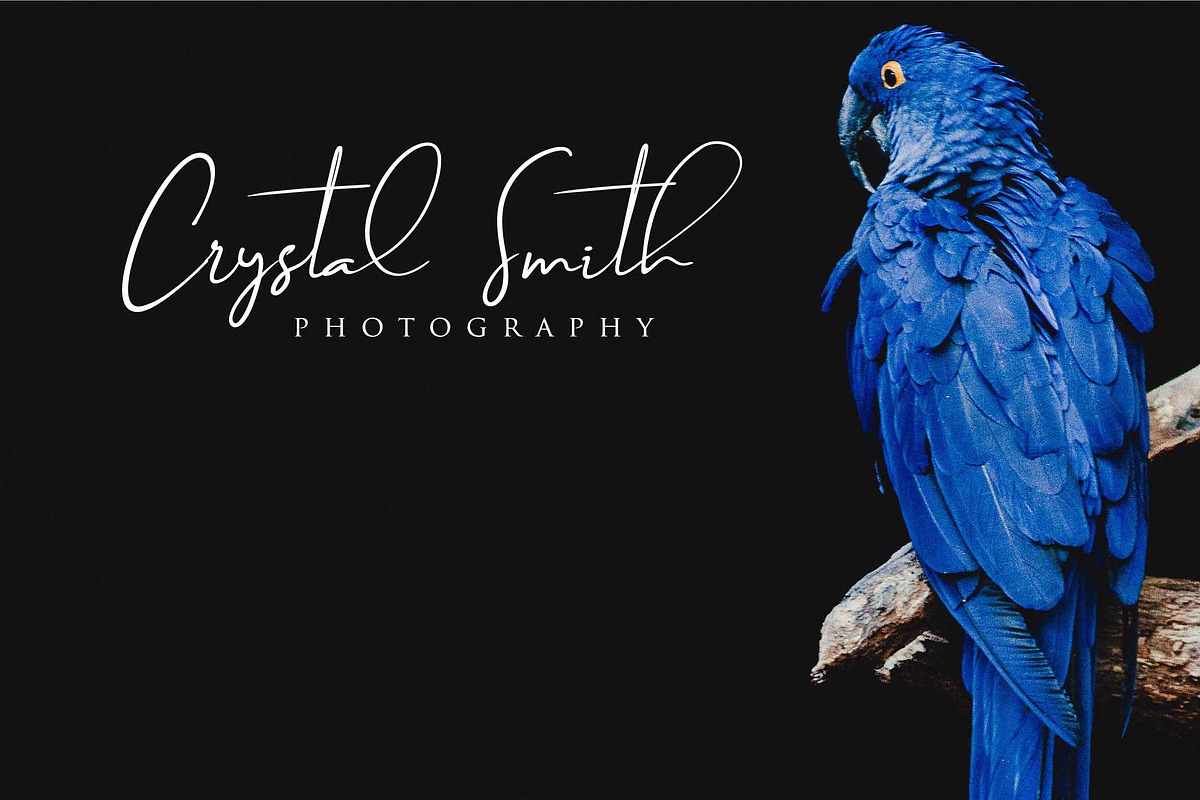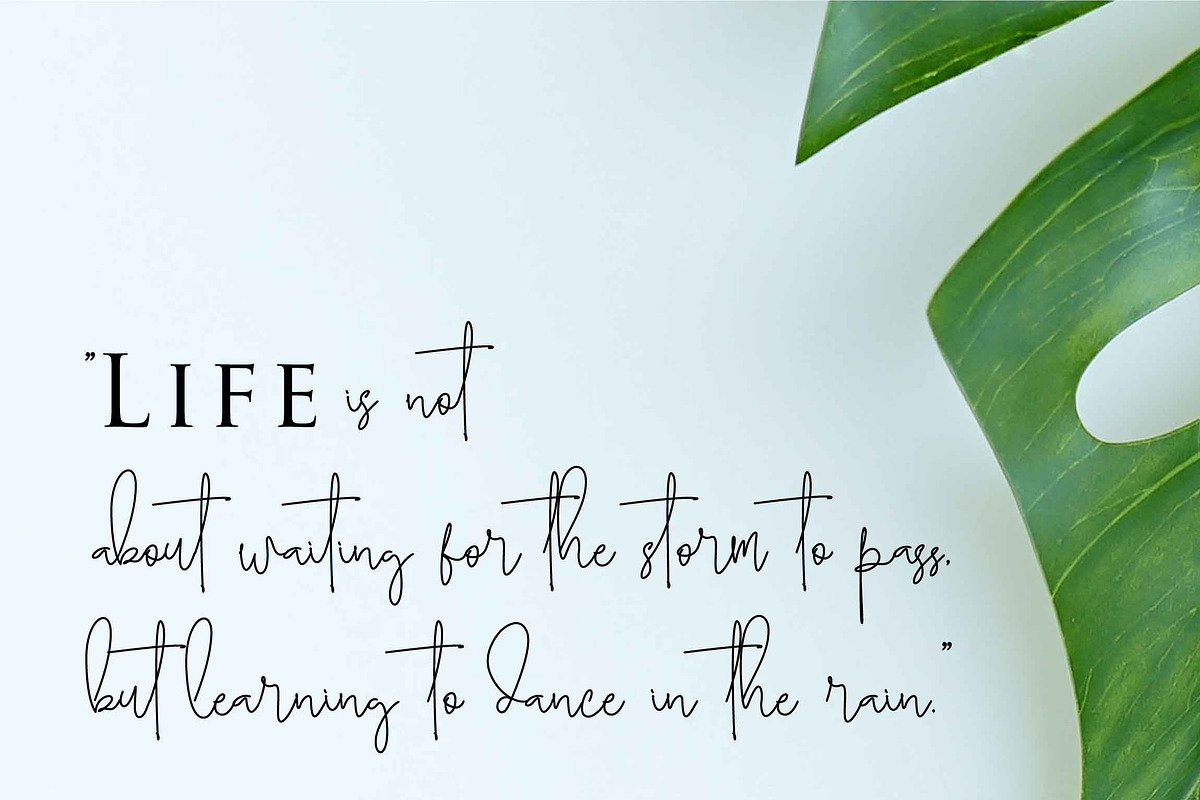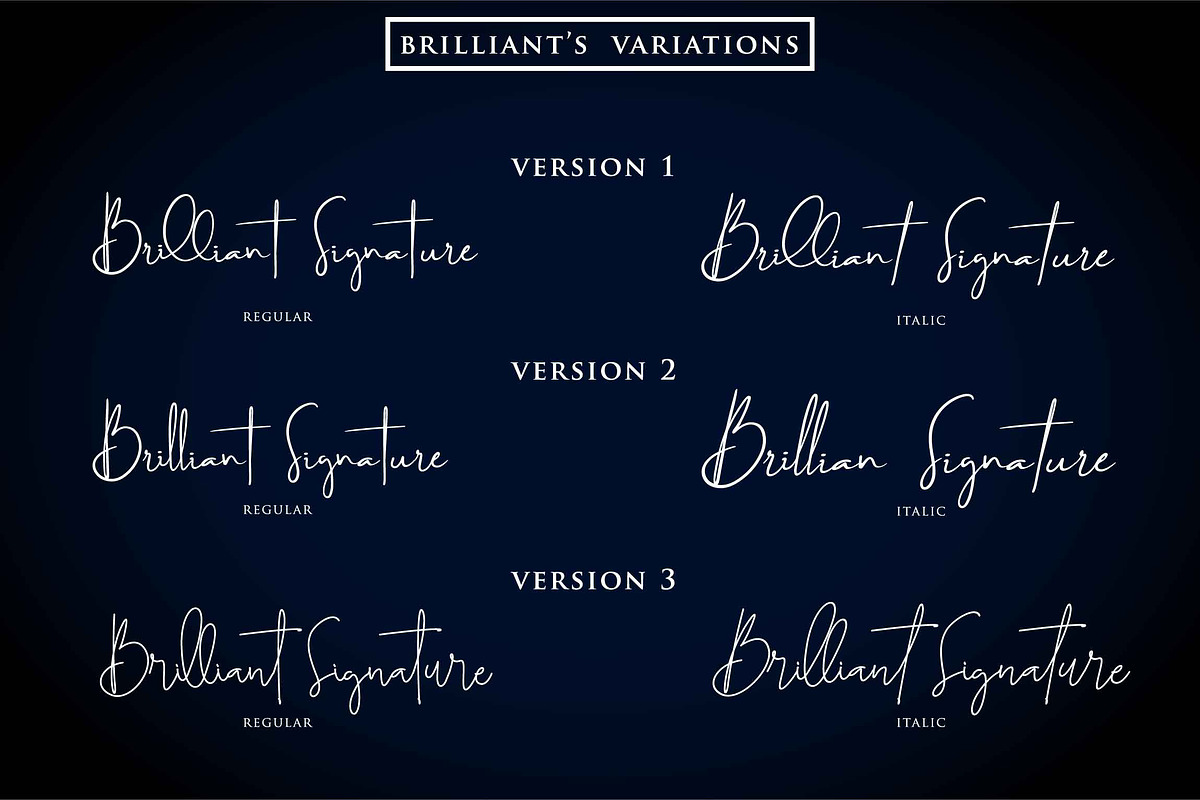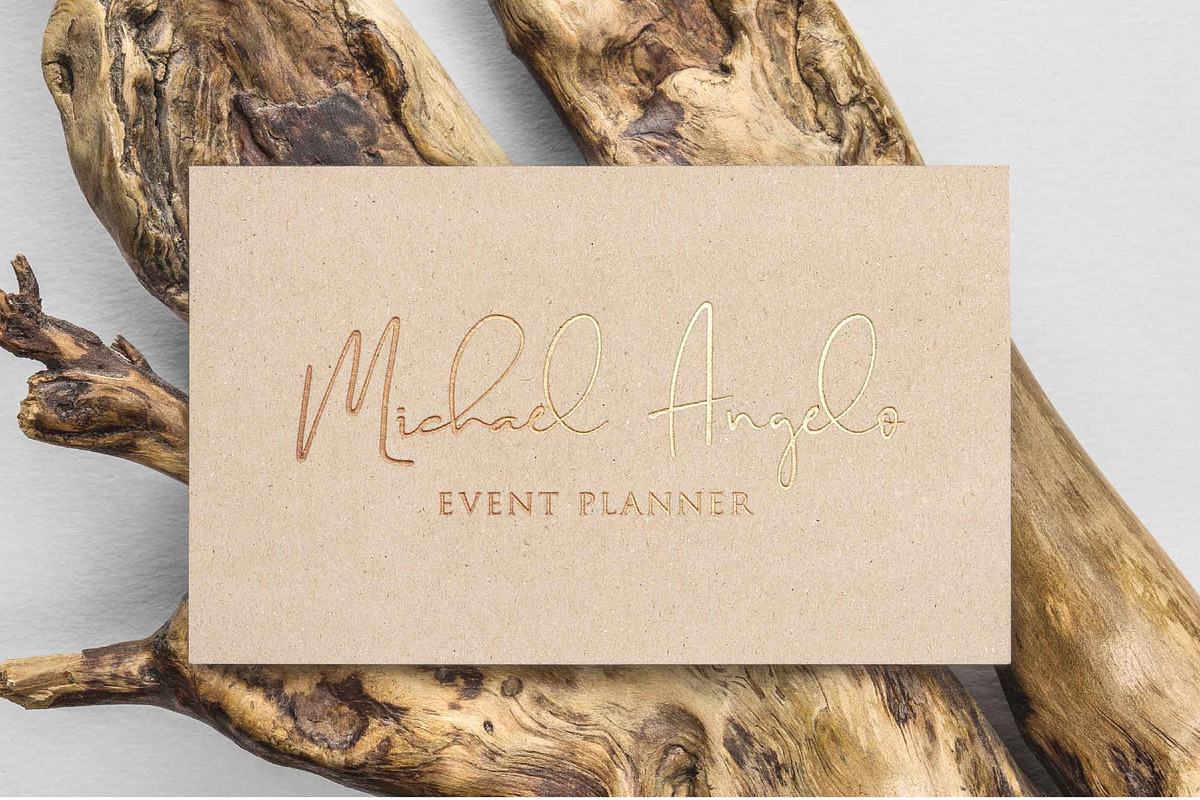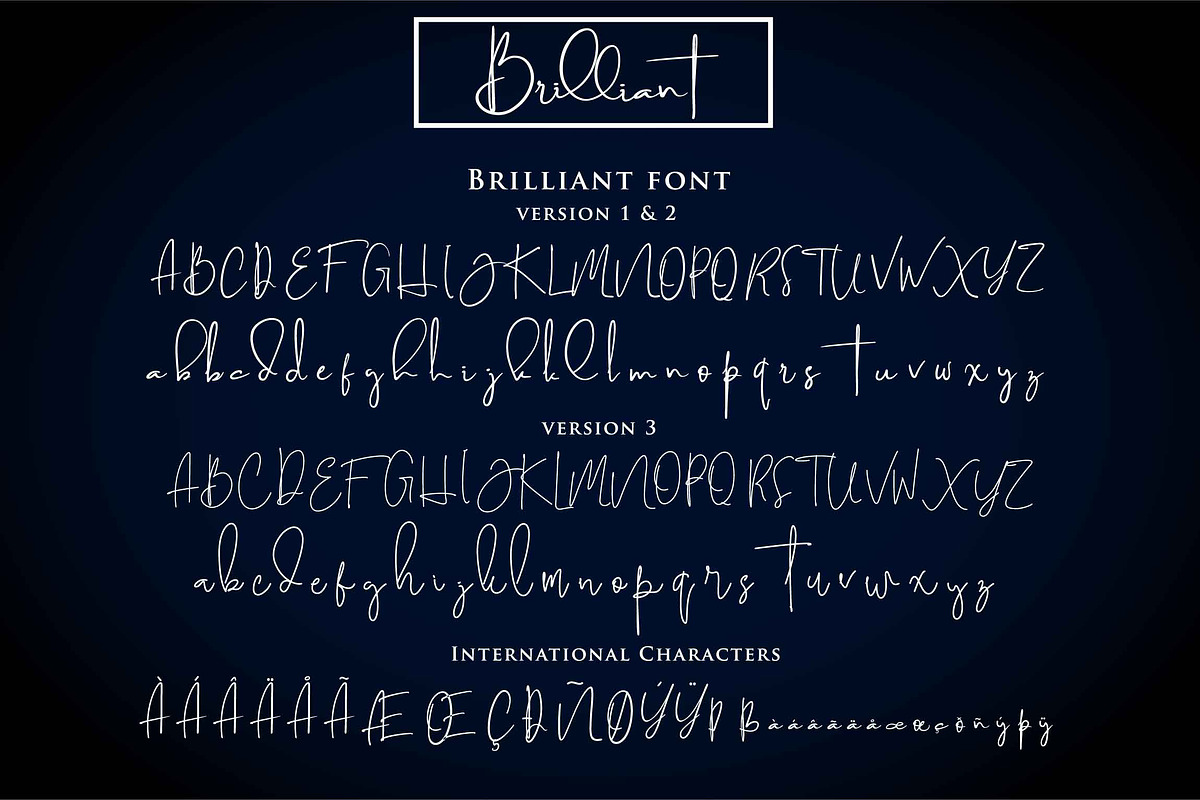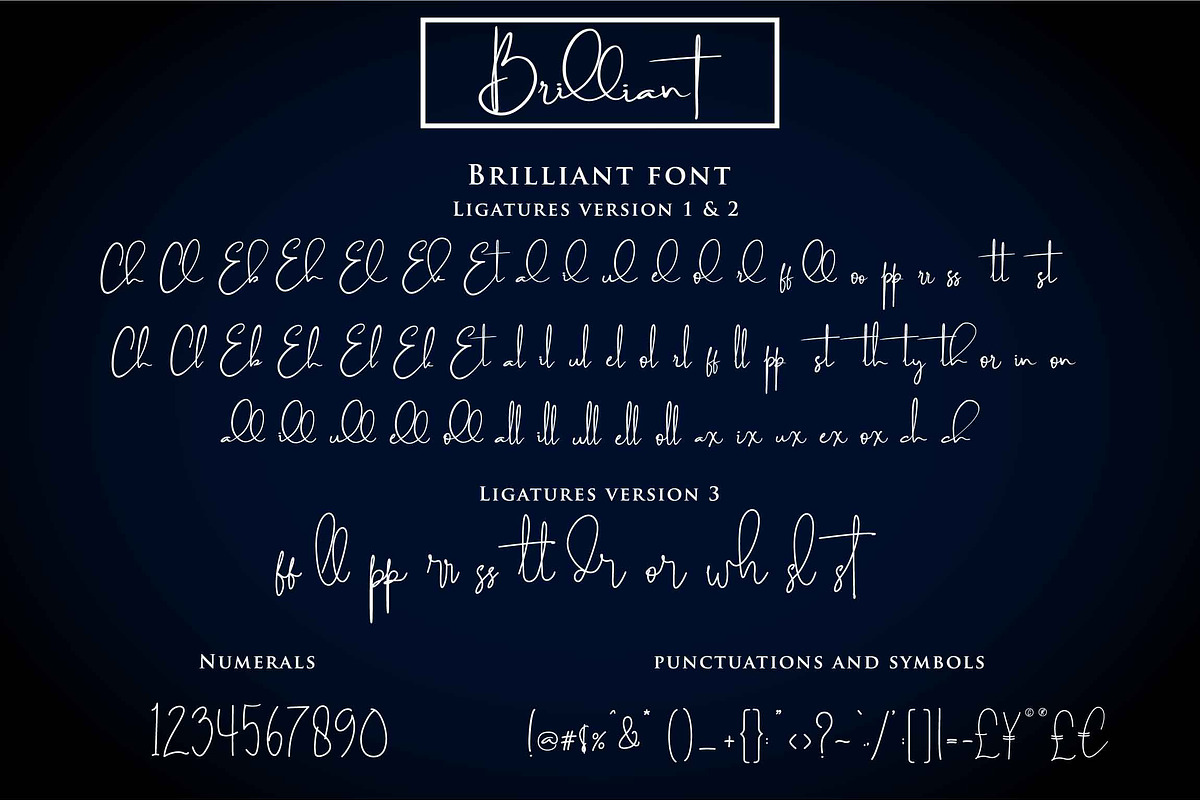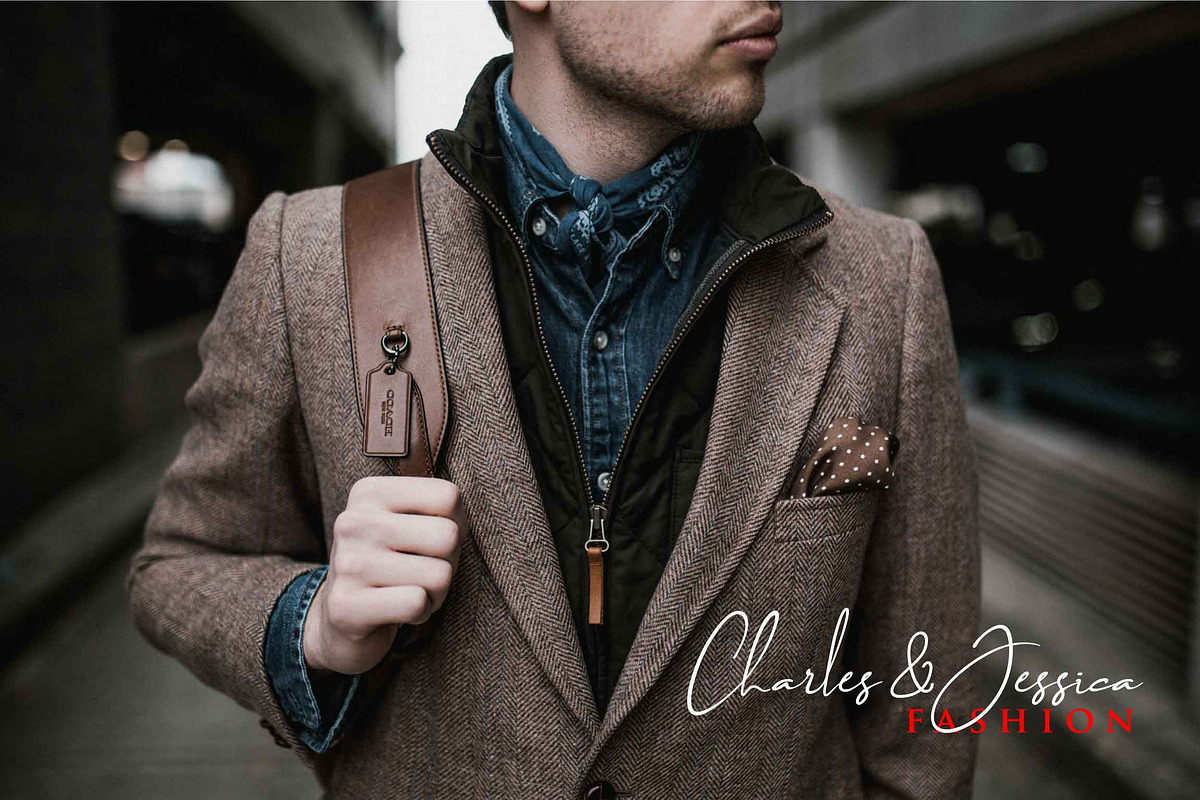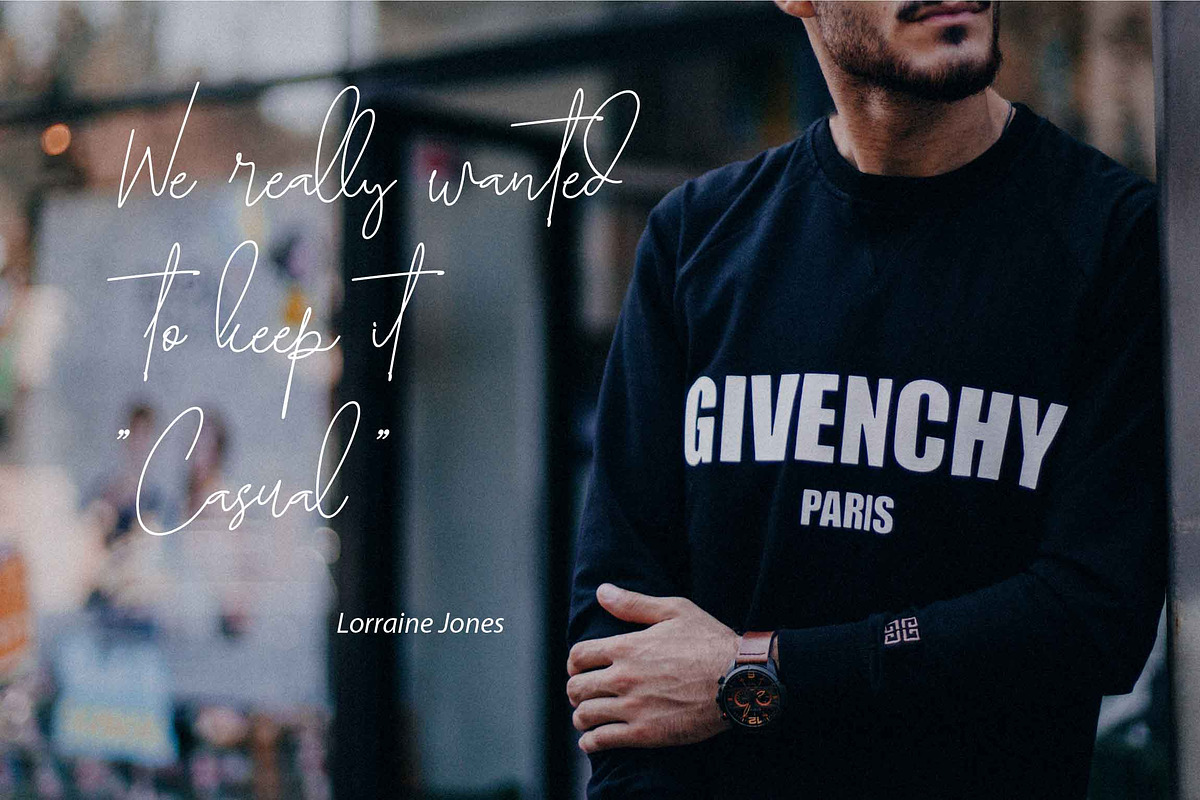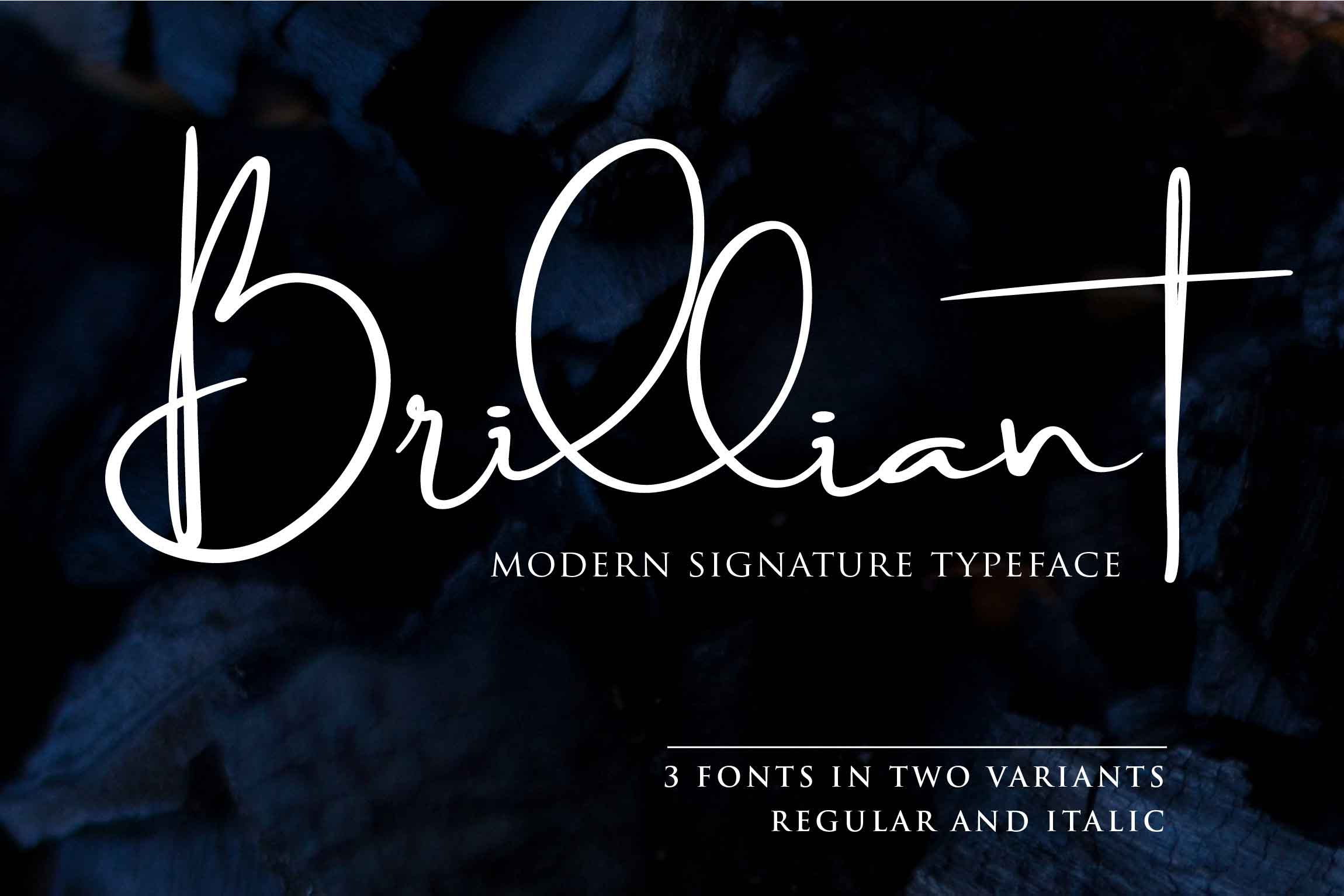
Brilliant - 3 Signature Font
Say hello to Brilliant Signature
— The 1st Winner of fontbundles.net Contest in Indonesia (2018) --
Brilliant Signature is a modern signature typeface. It’s perfect for various designs, such as posters, banners, logos, book covers, headings, printed products, merchandise, social media, and more. With the combination of elegant and casual style, this font contains a full set of lowercase and uppercase letters. Find out more ways to use this font by taking a look at the font preview.
- Stylistic Alternates and Ligatures